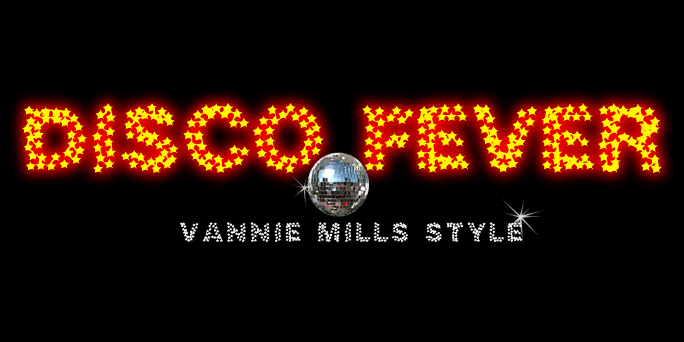
Discotech
I made this font for my roommate, Aaron VanMilligan. He is only 23, but that kid is one hardcore disco fanatic. He is forever putting on his Boogie Shoes. If you like the disco era, you might like my discotech font.